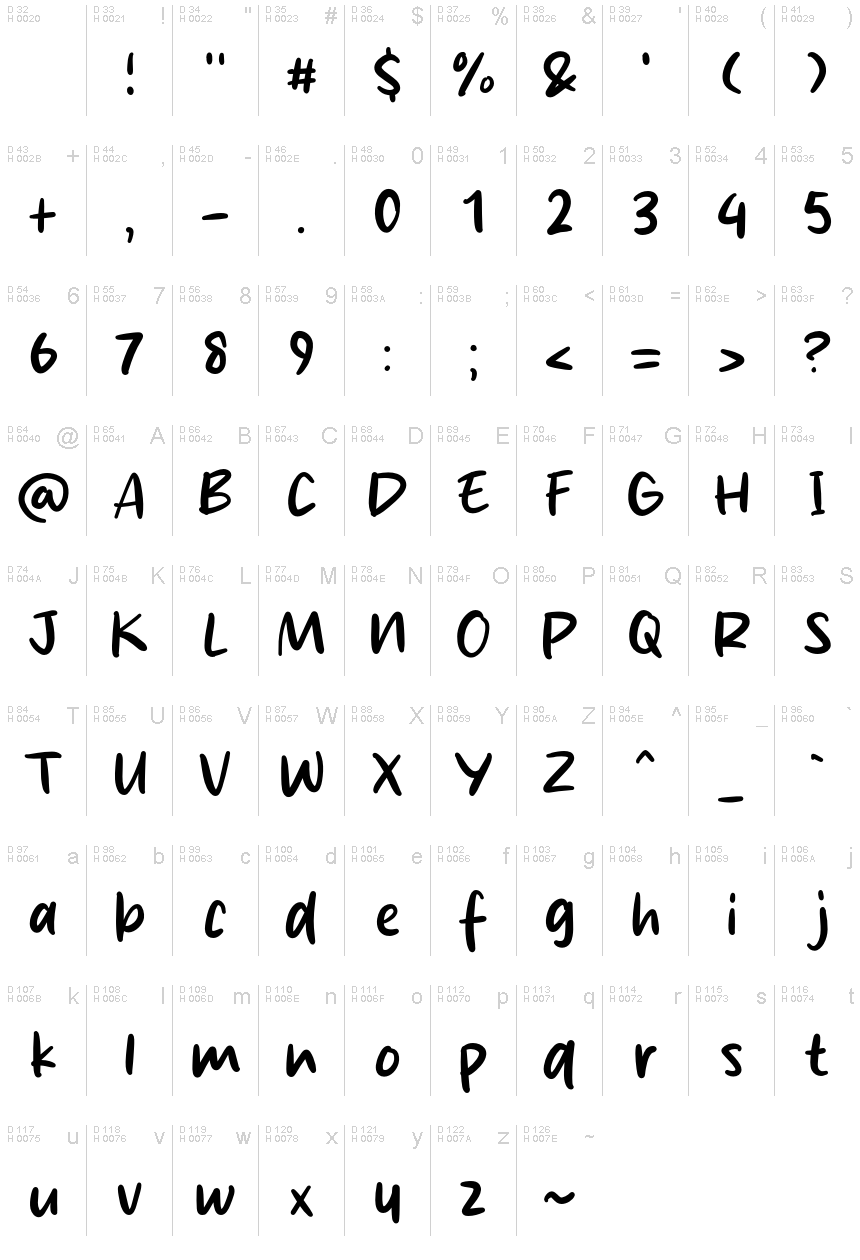
Original Fish
Original Fish font by MJType is a charming handwritten typeface that exudes personality and flair. Its playful strokes and organic flow make it perfect for designs that require a personal touch. The slightly expanded appearance emphasizes its free-spirited vibe, making it stand out in any project.
Ideal for invitations, creative branding, or social media graphics, this free font can add warmth and authenticity to your designs. Whether you're crafting eye-catching headings or unique logos, Original Fish's dynamic style ensures adaptability across various applications.